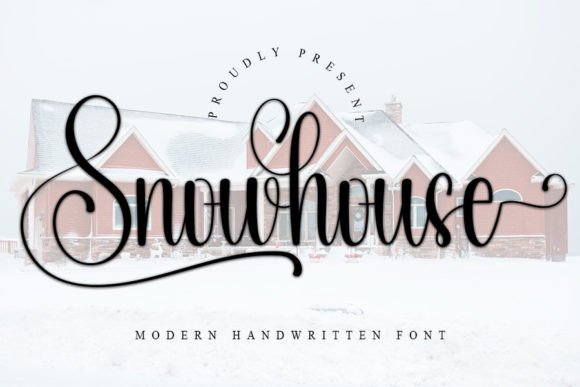
Are you on the hunt for the perfect font for your t-shirt design project? Look no further than Snowhouse Font, the latest addition to our script font family! Created by PiPi Creative, this beautiful handwritten font is the perfect combination of elegance and simplicity.
Snowhouse Font is the ideal choice for those looking to add a touch of uniqueness to their designs. With its neat and timeless style, it's sure to make your t-shirt designs stand out from the crowd. Whether you're creating a design for a special occasion or just looking for something to elevate your everyday wardrobe, Snowhouse Font is the perfect choice.
The handwritten style of Snowhouse Font adds a personal touch to your designs, making them feel more authentic and genuine. Plus, its elegant touch adds a touch of sophistication that will leave a lasting impression on anyone who sees your designs.
But that's not all - Snowhouse Font is also incredibly versatile! Use it to create logos, invitations, posters, and more. Its flexibility means you can use it for a wide range of projects, making it a must-have for any designer's toolkit.
Overall, Snowhouse Font is the perfect choice for those looking to take their t-shirt design game to the next level. Its distinct and timeless style, combined with its versatility and personal touch, make it the ultimate font for any project.